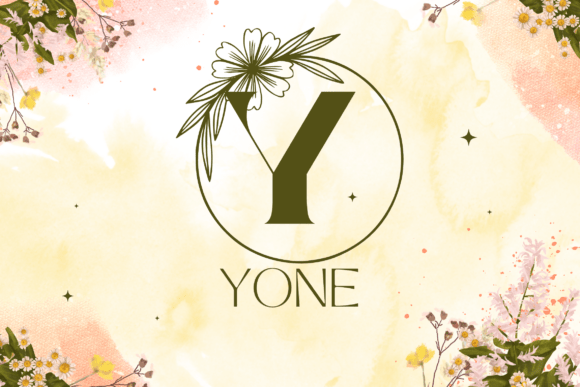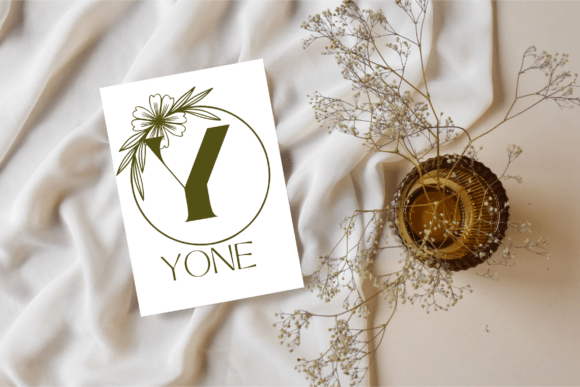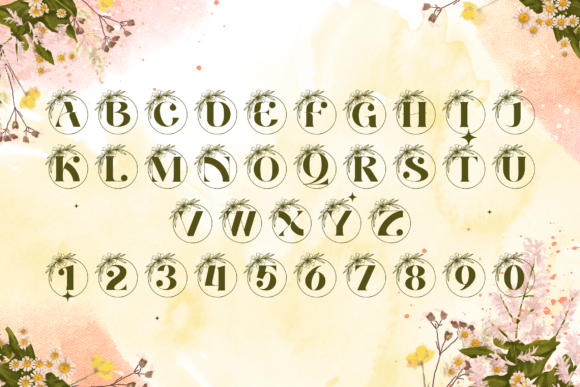
Introducing Floral Charm Monogram Font: Elevate Your Designs with Timeless Elegance
Are you a designer or crafter looking for a font that exudes romance, sophistication, and whimsy? Look no further than the Floral Charm Monogram Font. This exquisite serif monogram font is adorned with intricate floral embellishments on each uppercase letter, making it perfect for weddings, personalized gifts, branding, and luxury stationery.
Inspired by Nature and Tradition
The Floral Charm Monogram Font draws inspiration from romantic garden aesthetics and timeless monogram traditions. Its delicate and ornate design transports you to a lush garden filled with blooming flowers, evoking feelings of nostalgia and elegance. Whether you’re designing wedding invitations, monogrammed towels, or luxury packaging, this font adds a touch of refinement and sophistication to your creations.
A Refined yet Organic Design
What sets the Floral Charm Monogram Font apart is its refined yet organic design. Each uppercase letter features beautifully detailed floral embellishments that make every initial feel custom and meaningful. The font’s serif structure adds a touch of classic elegance, while the floral accents bring a playful and romantic flair. This unique blend of styles makes the Floral Charm Monogram Font versatile and suitable for a wide range of applications.
Perfect for Various Applications
The Floral Charm Monogram Font is an excellent choice for designers and crafters working on various projects, including:
- Weddings: Create stunning wedding invitations, save-the-date cards, and ceremony programs that set the tone for a romantic and unforgettable celebration.
- Personalized Gifts: Add a touch of elegance to monogrammed towels, blankets, and stationery, making thoughtful gifts for friends and family.
- Branding: Elevate your brand’s luxury appeal with custom packaging, business cards, and letterheads that exude refinement and sophistication.
- Luxury Stationery: Design exquisite notebooks, journals, and greeting cards that showcase your attention to detail and commitment to quality.
Why Choose Floral Charm Monogram Font?
With the Floral Charm Monogram Font, you can:
- Add a touch of romance and whimsy: Bring a sense of playfulness and elegance to your designs with the font’s intricate floral embellishments.
- Stand out from the crowd: The unique blend of serif and floral elements makes the Floral Charm Monogram Font a standout choice for designers and crafters.
- Save time and effort: With a pre-designed font, you can quickly and easily add a professional touch to your projects without spending hours on custom design.
Get Creative with Floral Charm Monogram Font
Whether you’re a seasoned designer or a crafty DIY enthusiast, the Floral Charm Monogram Font is an excellent addition to your toolkit. With its timeless elegance and versatility, you can experiment with various design applications, from digital projects to handmade crafts.